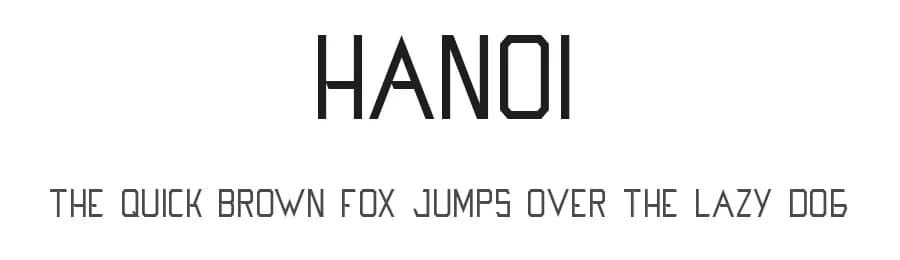
About Hanoi Font
Hanoi is a sans-serif font designed by Alex Dale. It includes 102 glyphs, a regular weight, TTF (TrueType) format, and 107 languages. Hanoi is free to download; check the license details on this page before commercial use. Sans-serif fonts like Hanoi work best for clean body text, user interfaces, branding, and modern layouts.
Hanoi Font is a versatile sans-serif font that works for both headings and body text. Pair it with a contrasting serif or slab serif font to add visual interest and a clear distinction between titles and body copy.
Hanoi Font